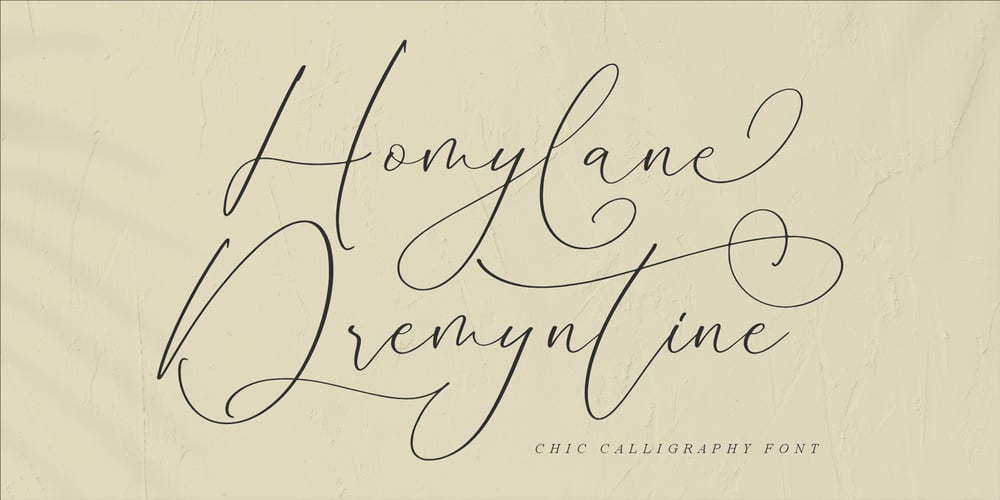
Homylane Dremyntine
Homylane Dremyntine font
Homylane Dremyntine Font Family was designed by Heru Utama Putra and published by Letterena Studios. Homylane Dremyntine contains 2 styles and family package options. Homylane Dremyntine is a chic and stylish handwritten script font. Its casual charm makes it appear wonderfully down-to-earth, readable, and, ultimately, incredibly versatile.